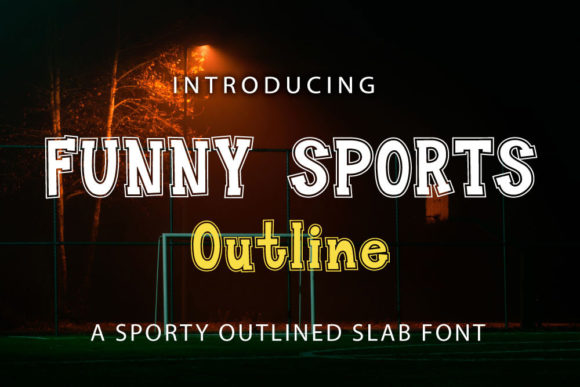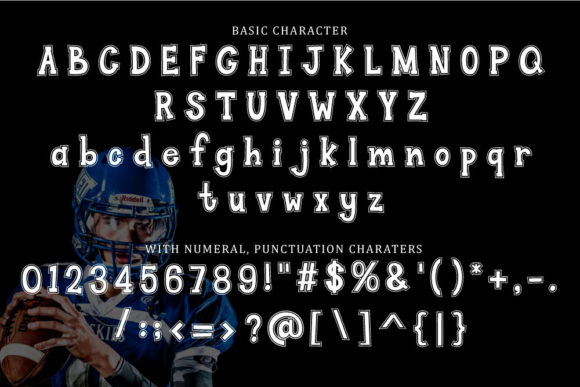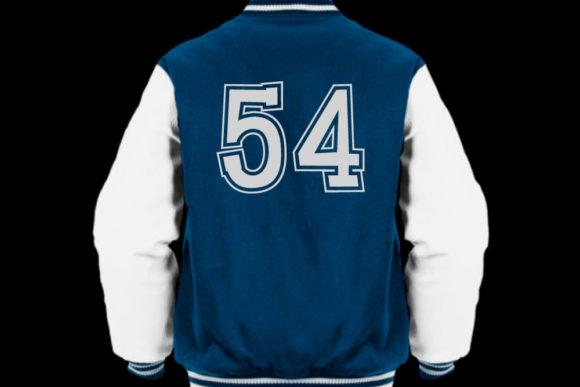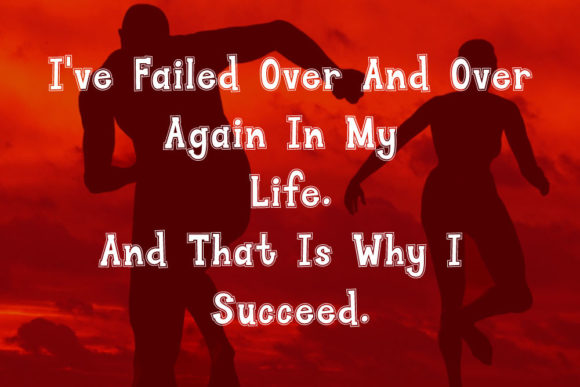
Funny Sports Outline: A Cool and Adaptable Slab Serif Font
Funny Sports Outline is a dynamic slab serif font that combines a cool aesthetic with adaptability. This font is designed to excel in projects related to speed, athletics, or strength, making it a versatile choice for various creative applications.
Key Features of Funny Sports Outline
- Cool Design: Features a modern and engaging look that resonates with sports themes.
- Adaptable Style: Easily matched to a wide range of projects, from logos to promotional materials.
- Slab Serif Structure: Incorporates the characteristic thick, rectangular serifs typical of slab serif fonts.
- Versatile Application: Perfect for designs focused on athletics, fitness, and competitive spirit.
- Imaginative Potential: The only limit is your imagination; it can be used in various creative contexts.
Ideal Uses for Funny Sports Outline
Funny Sports Outline’s unique characteristics make it particularly well-suited for:
- Sports team branding and logos.
- Event posters and flyers for athletic competitions.
- Merchandise design related to sports and fitness.
- Website headers and digital content aimed at sports enthusiasts.
- Promotional materials for athletic events or fitness programs.
When incorporating Funny Sports Outline into your designs, consider the following tips:
- Use for bold headlines or titles to maximize its impact.
- Experiment with different sizes to highlight the font’s unique outline features.
- Pair with complementary fonts to create contrast and visual interest in your designs.
- Take advantage of its playful nature in projects that aim to inspire excitement and energy.
Funny Sports Outline is an excellent choice for designers looking to add a cool and adaptable slab serif font to their typographic toolkit. Its ability to resonate with themes of speed and strength makes it stand out in the world of typography. Whether you’re working on branding, creating layouts for sports events, or developing promotional materials, Funny Sports Outline offers the perfect blend of fun and functionality.
Add Funny Sports Outline to your creative projects and explore how it can enhance your designs with its energetic style. From eye-catching headlines to impactful branding elements, this font provides the tools to create memorable typography that resonates with sports enthusiasts and beyond.